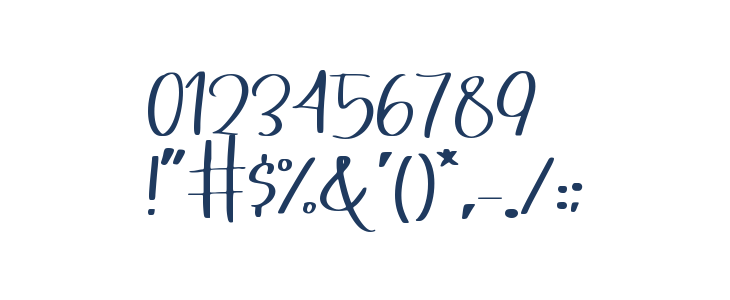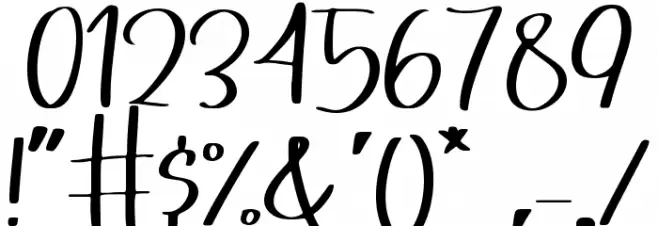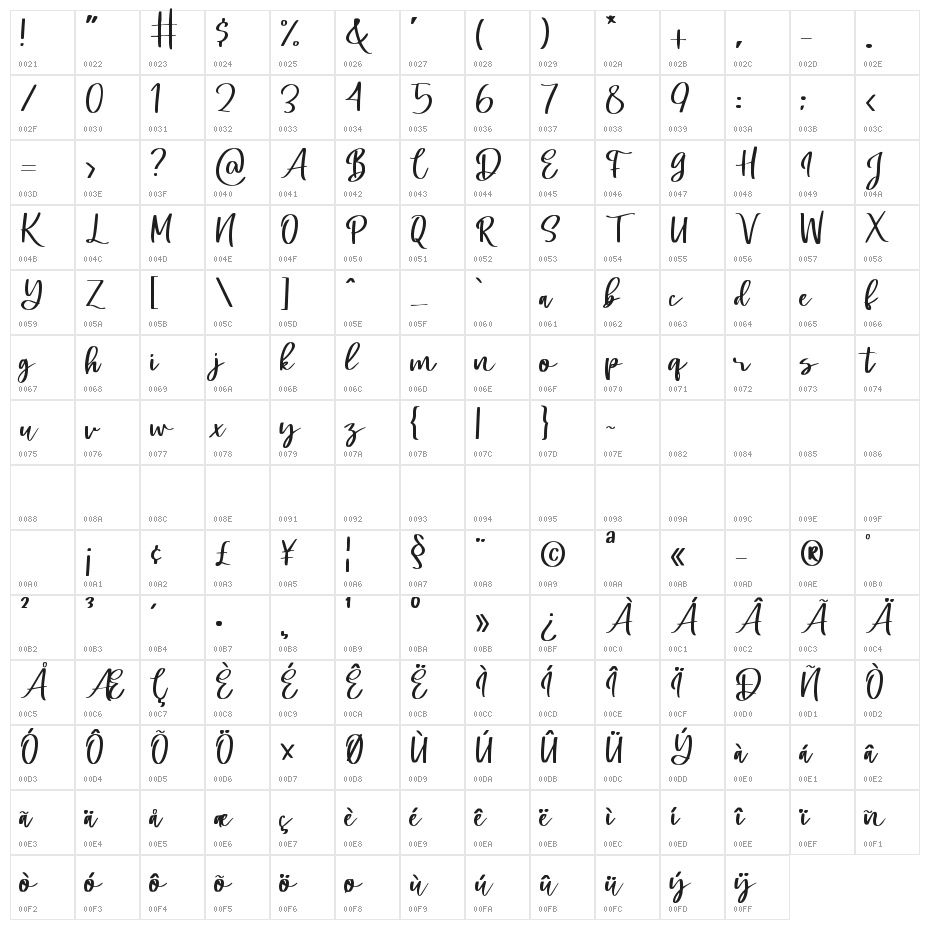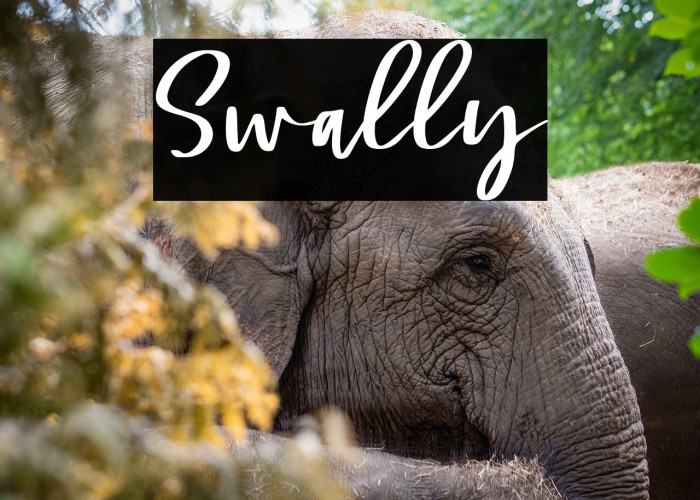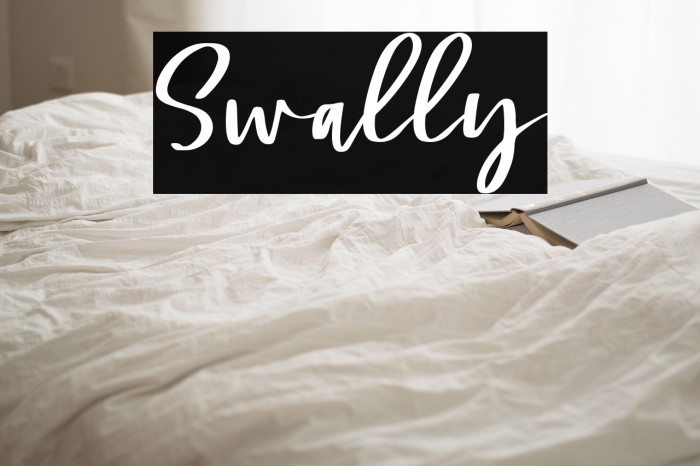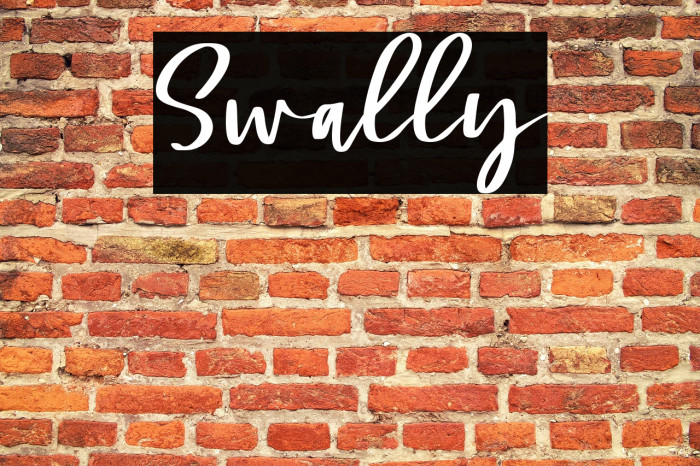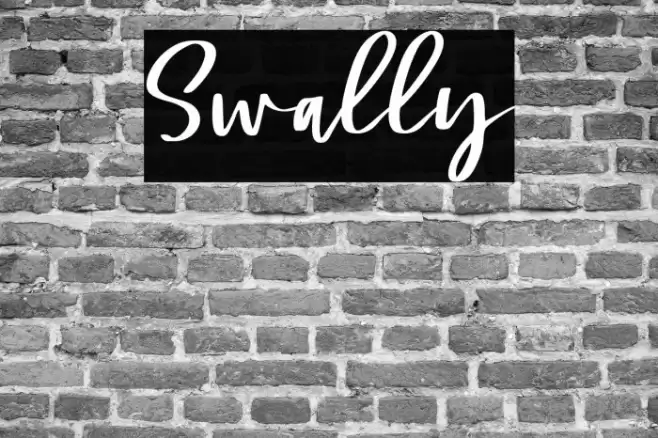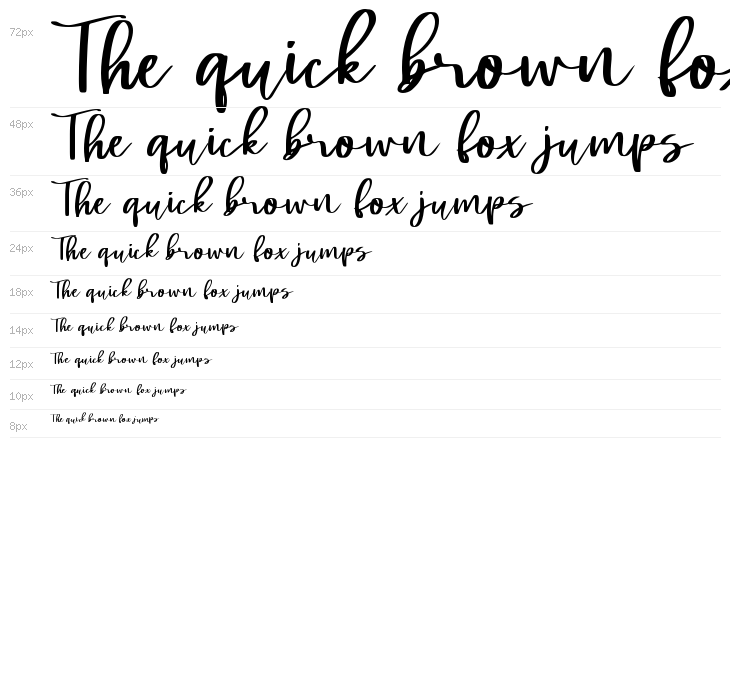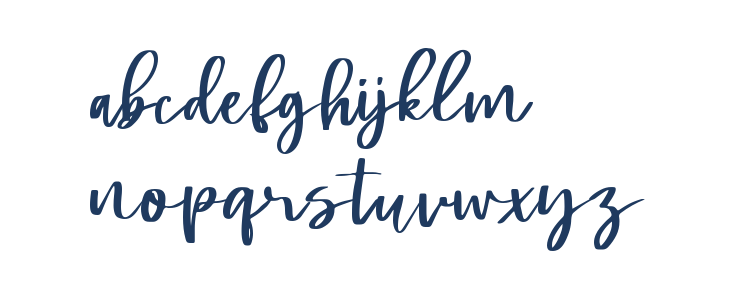
Swally Font
Swally Description
This font features a lively and flowing script style, characterized by its elegant and smooth curves. The uppercase letters are bold and slightly slanted, giving a sense of movement and grace. The lowercase letters maintain a consistent flow, with some characters extending below the baseline, adding to its dynamic appearance. The numerals are well-integrated with the overall style, maintaining the same fluidity and boldness. Special characters are crafted with the same attention to detail, ensuring a cohesive look across all glyphs. This font is perfect for projects that require a personal and artistic touch, such as invitations, branding, and creative designs.
| Proposed Projects | Ideal for invitations, branding, creative designs, and artistic projects. |